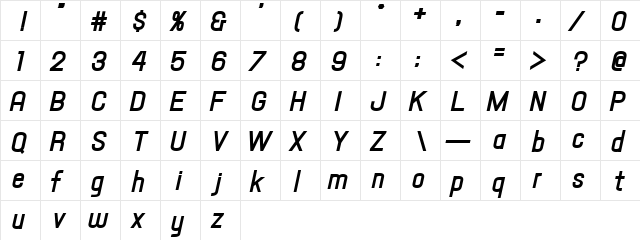
Hallandale Text Bold Italic JL Regular Font Preview
Design Context for Hallandale Text Bold Italic JL Typeface
Hallandale Text Bold Italic JL takes a measured approach to typography — its balanced proportions and neutral character make it a reliable workhorse for both digital and print work. The dynamic lean of this cut emphasises speed and emphasis in any layout. Its bold stroke weight gives it real presence on the page.
Pro Tip: Use Hallandale Text Bold Italic JL for emphasis, pull quotes, and subheadings where its slanted energy can add rhythm to the layout.